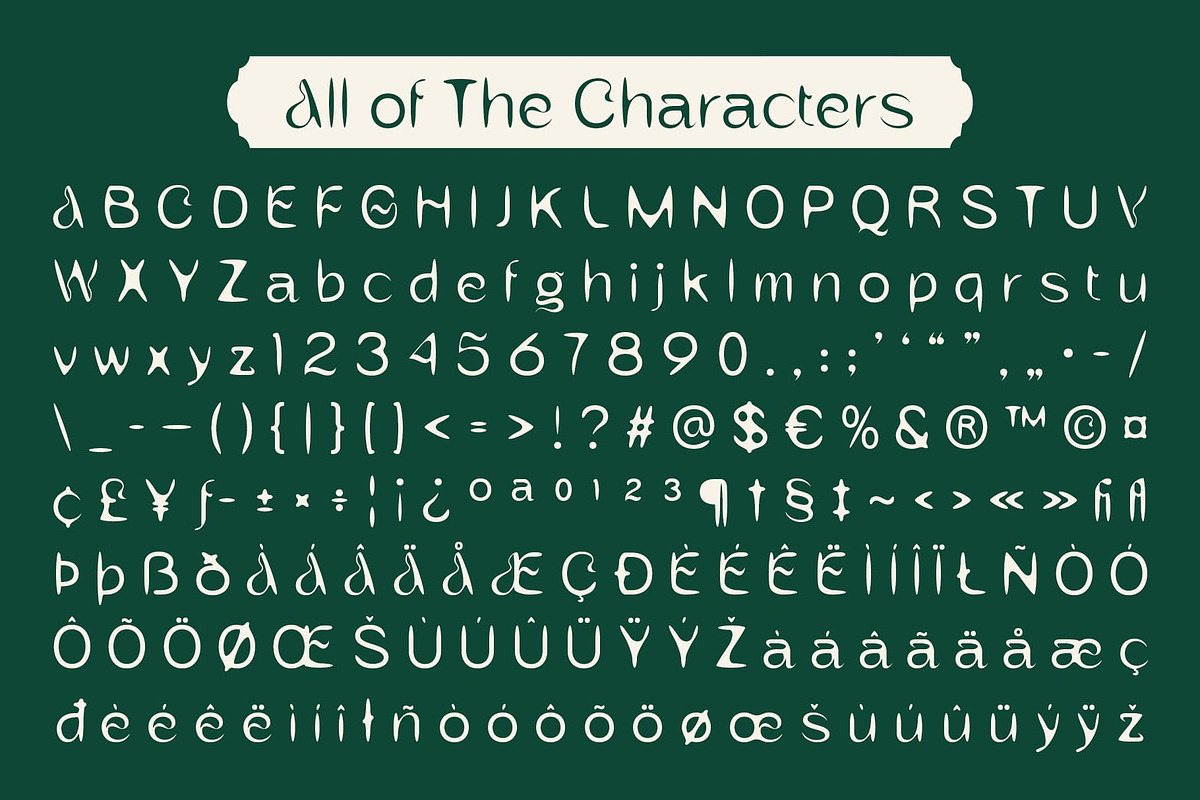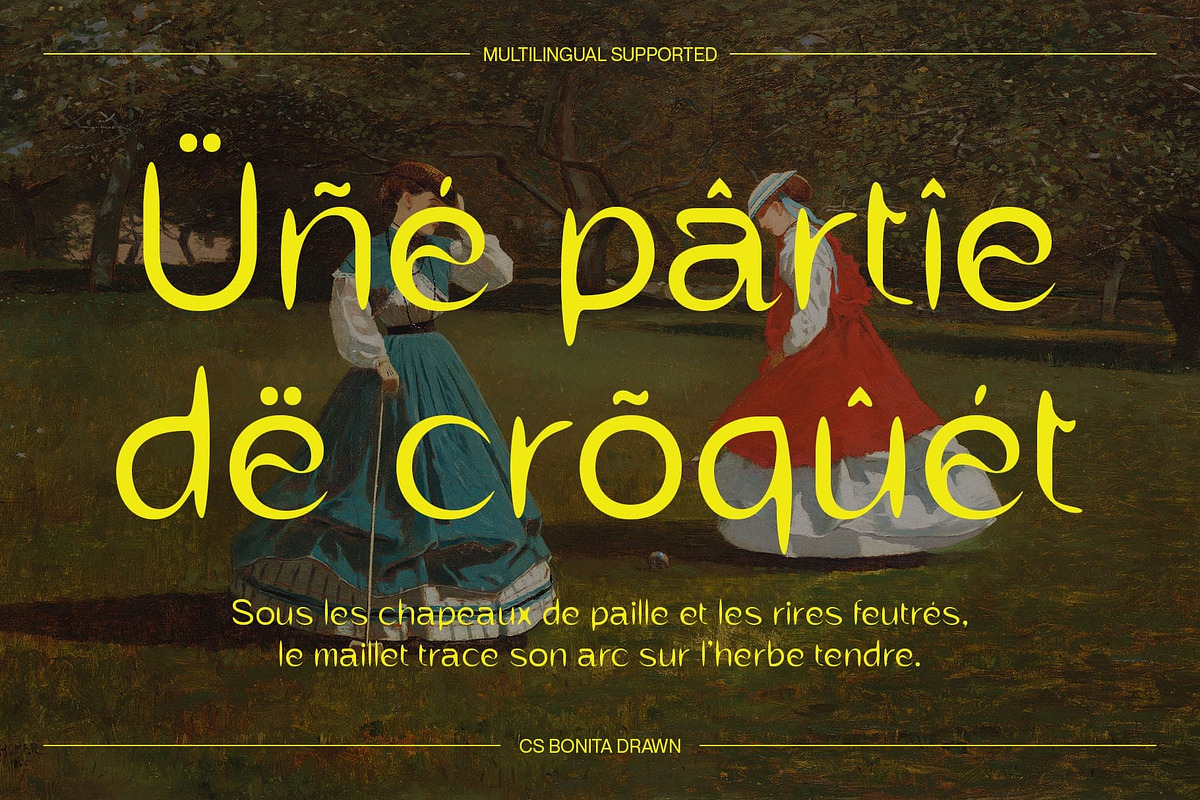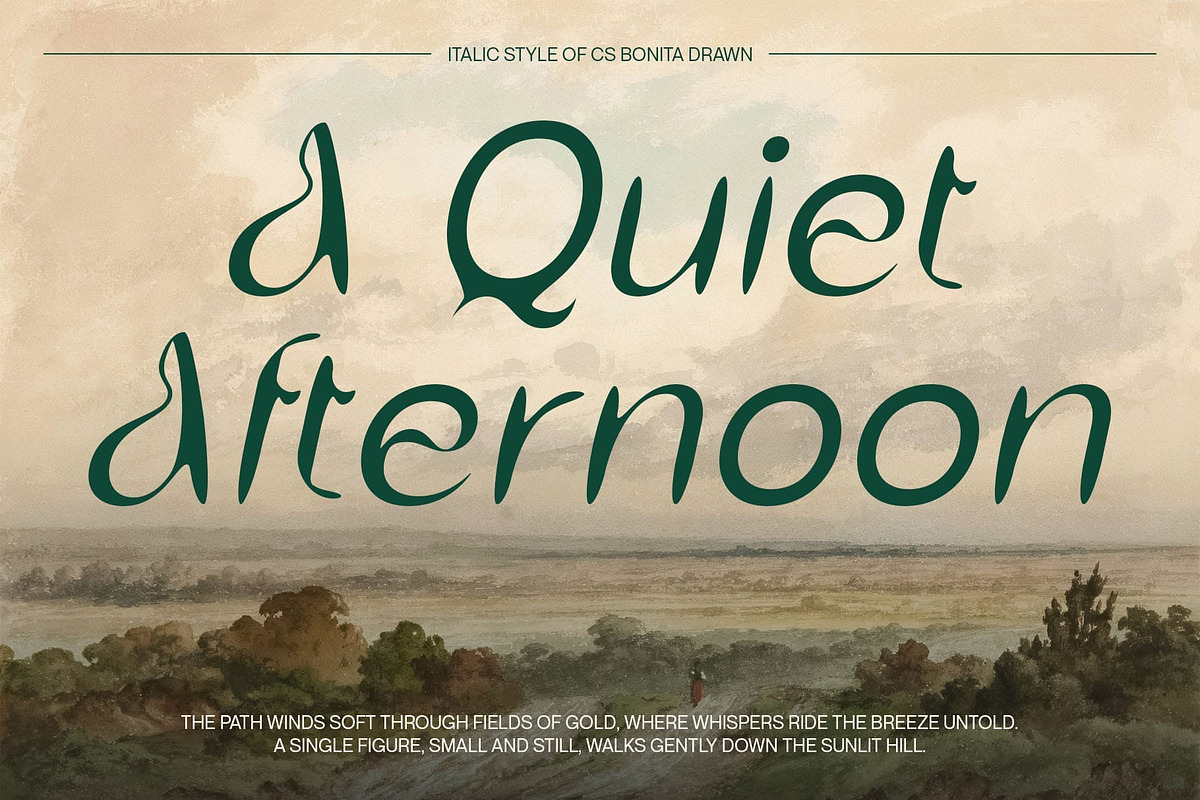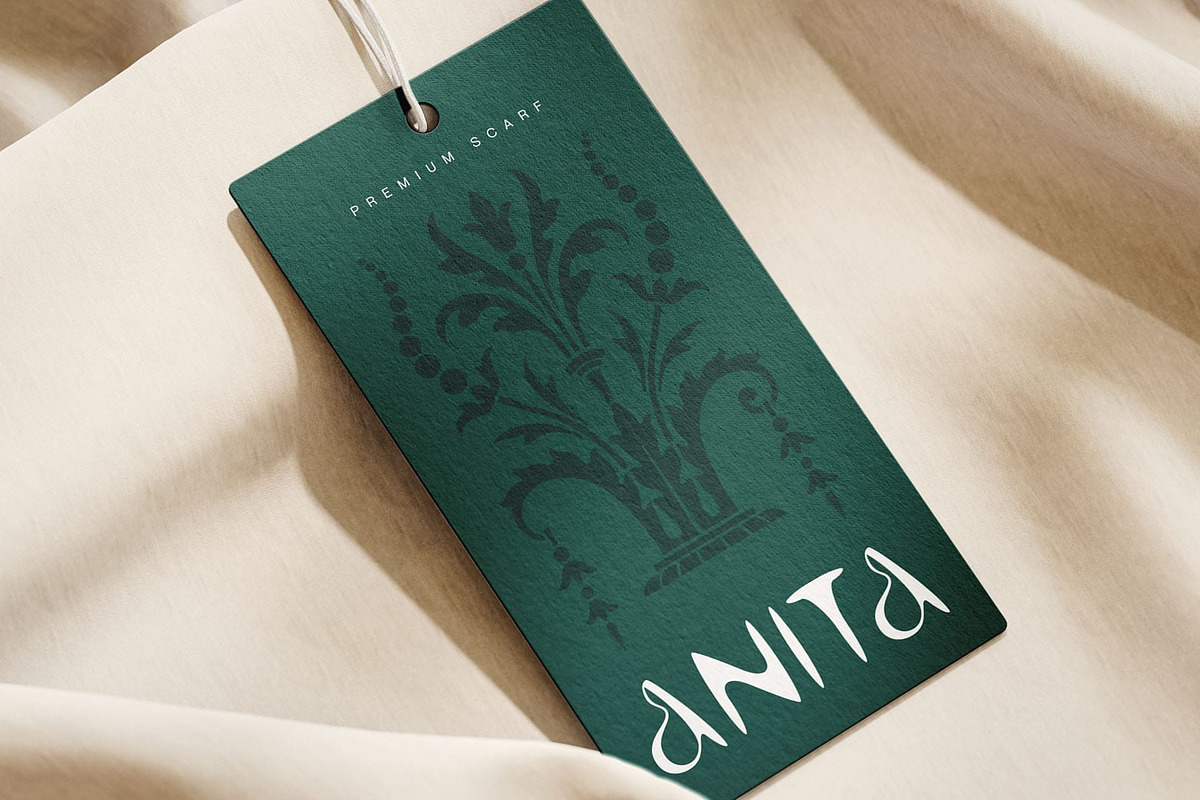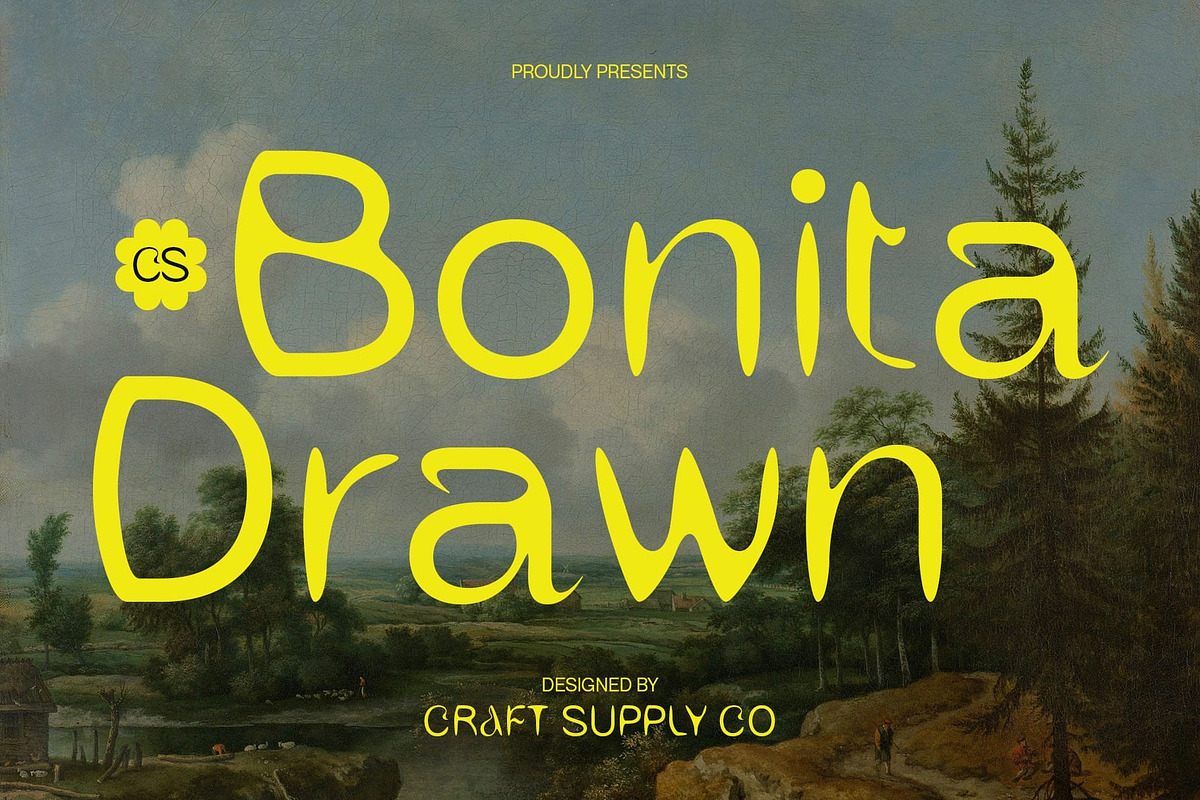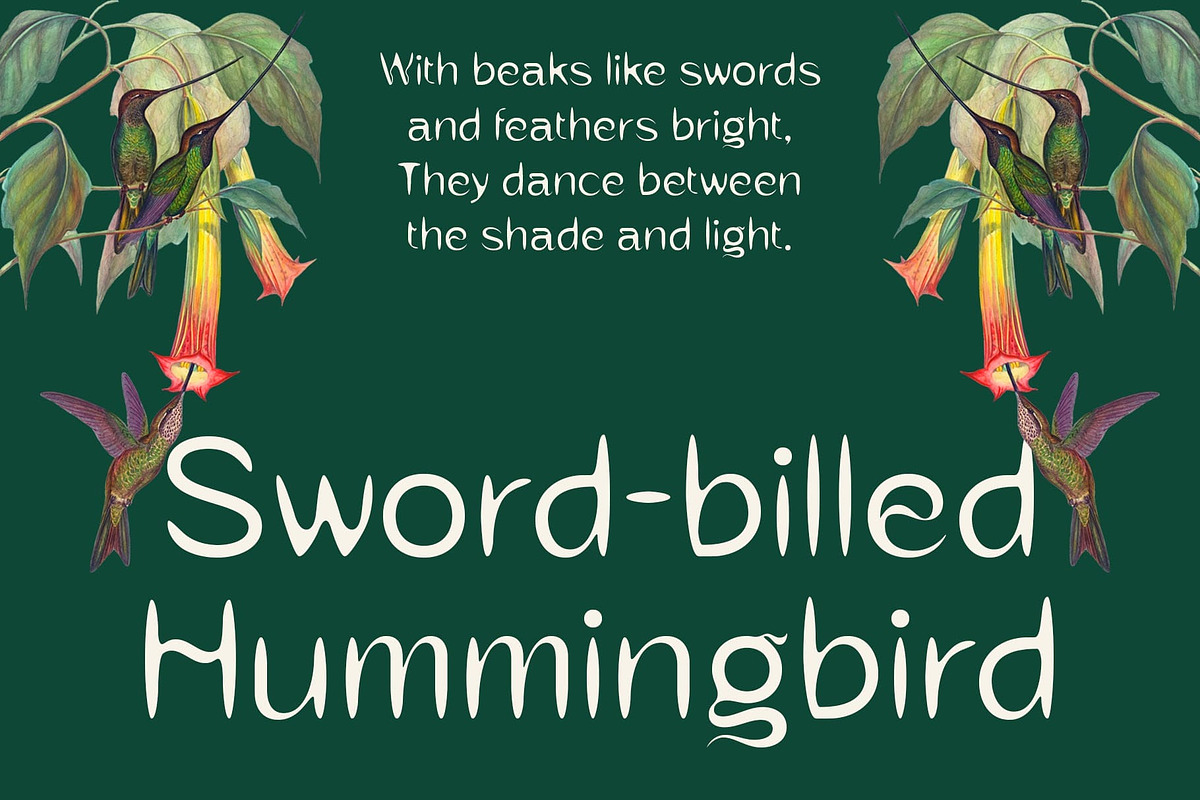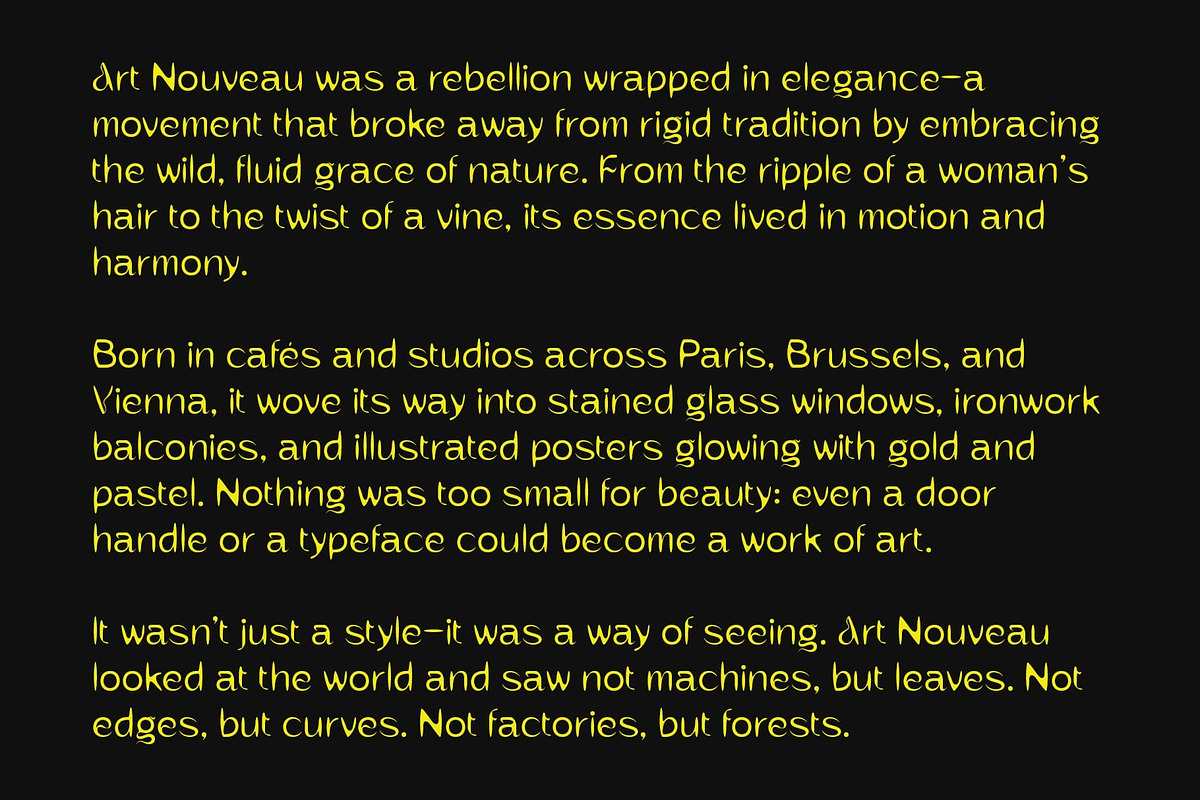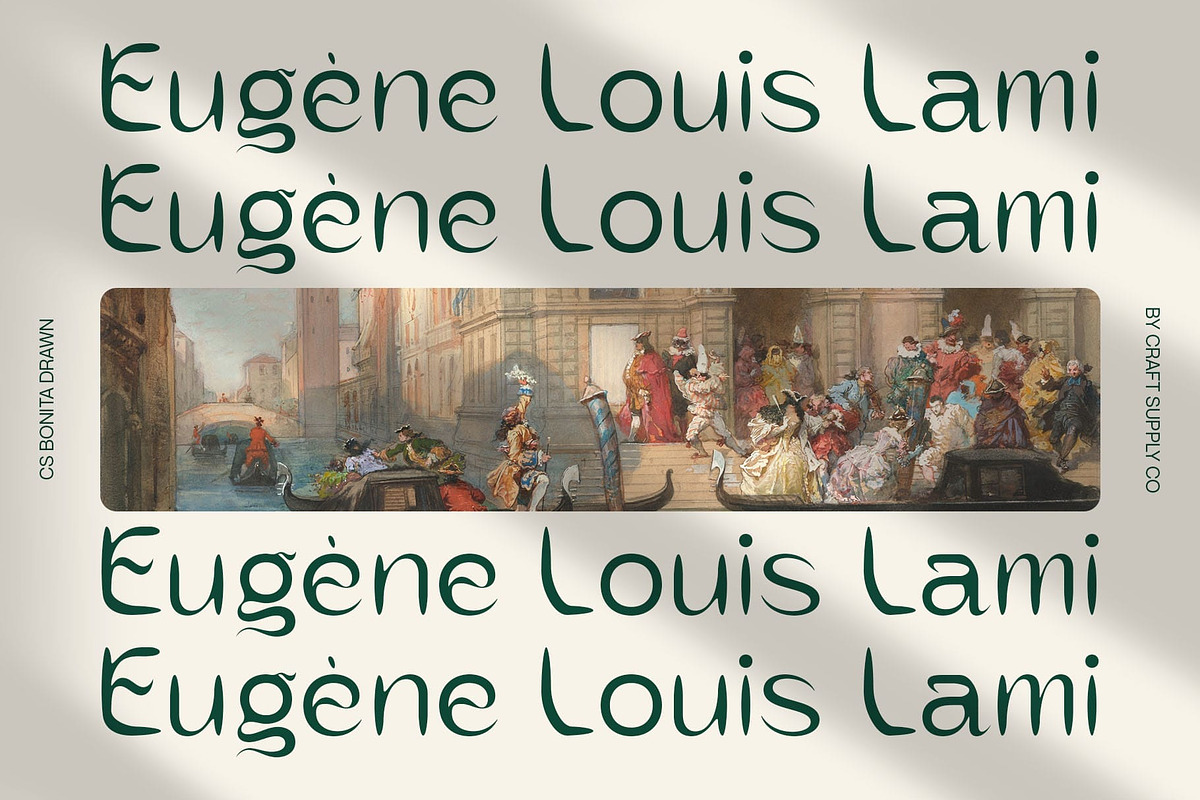
CS Bonita Drawn
CS Bonita Drawn – Where Modern Elegance Meets Artistic Flair
Elegant Sans-Serif with Art Nouveau Influence CS Bonita Drawn is a modern display sans-serif font that gracefully blends clean, minimalist structure with the decorative curves of Art Nouveau. Its design strikes a balance between geometric simplicity and flowing ornamentation, resulting in a typeface that feels refined, artistic, and full of visual charm.
Feminine and Aesthetic Design Language With its soft, sweeping forms and delicate proportions, Bonita Drawn evokes an elegant and feminine impression. The letterforms feel light yet confident—perfect for design work that needs to communicate grace, beauty, and modern sophistication.
Drawn Effect Adds Handcrafted Warmth The subtle drawn texture introduces a handcrafted, organic quality that enhances the font’s personality. This effect gives it an expressive, one-of-a-kind appearance, making it suitable for designers seeking something both stylish and human in feel.
Perfect for Sophisticated and Expressive Visuals This naturally flowing font is ideal for luxury branding, creative packaging, fashion editorials, artistic posters, and any project that seeks a sophisticated look with an expressive twist. It offers a unique visual identity—elegant, personal, and full of aesthetic character. Whether you’re designing luxury packaging, fashion editorials, product labels, or boutique branding, this feminine font delivers a distinctive balance of refinement and creativity. Its expressive details and modern elegance make it perfect for projects that aim to be beautiful, bold, and unforgettable.